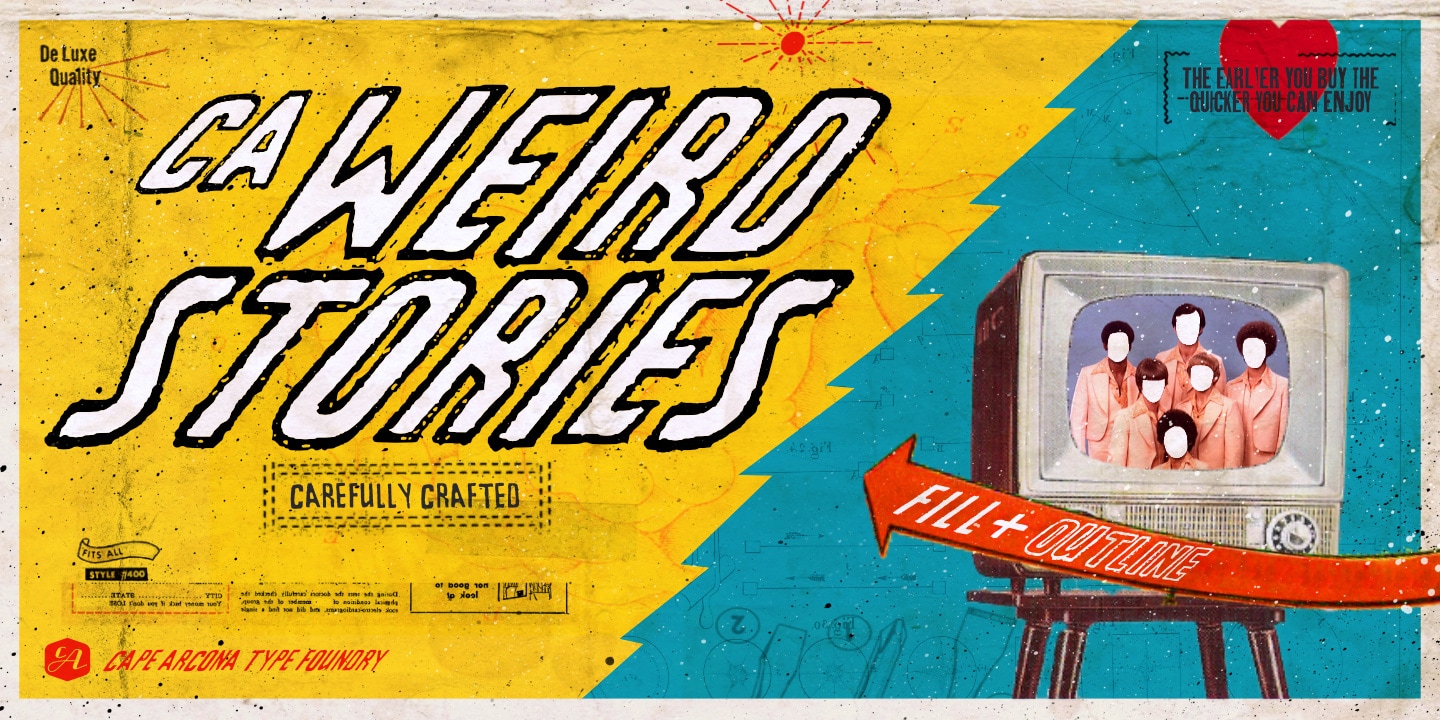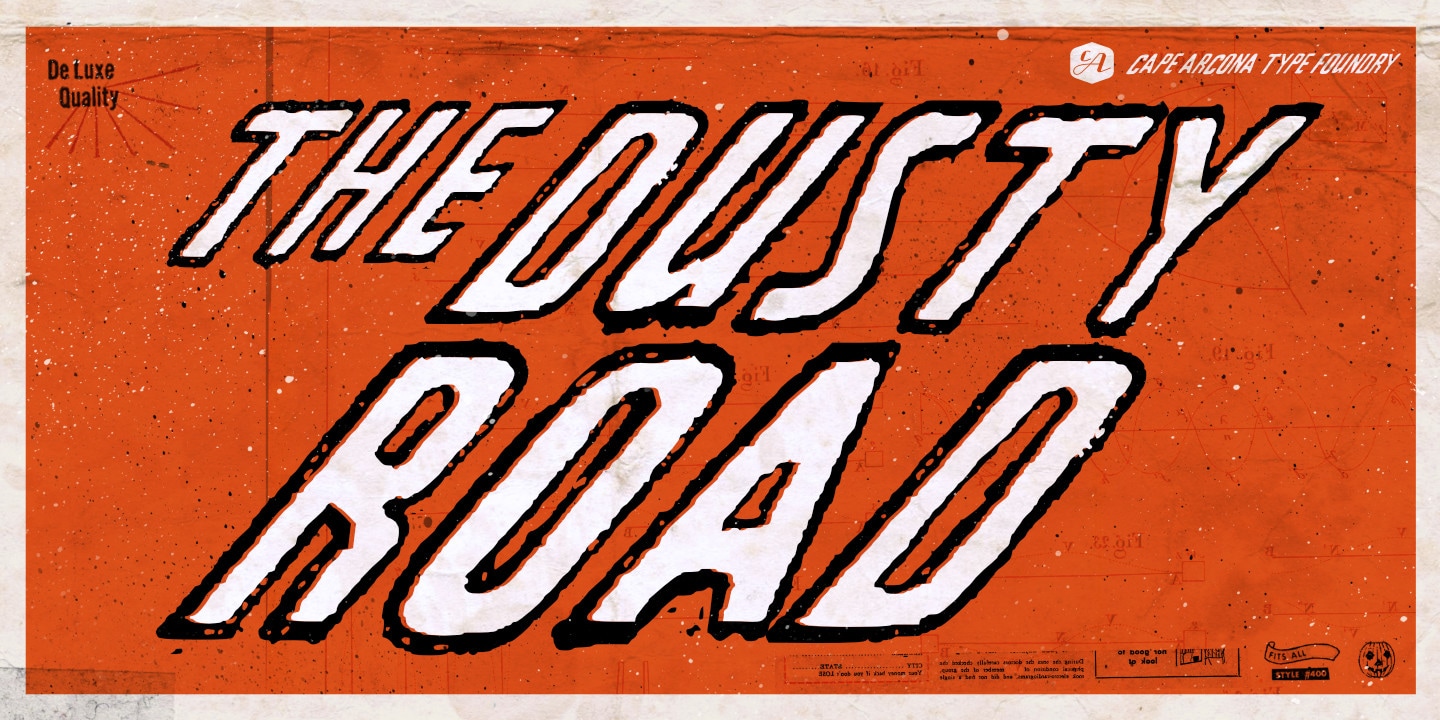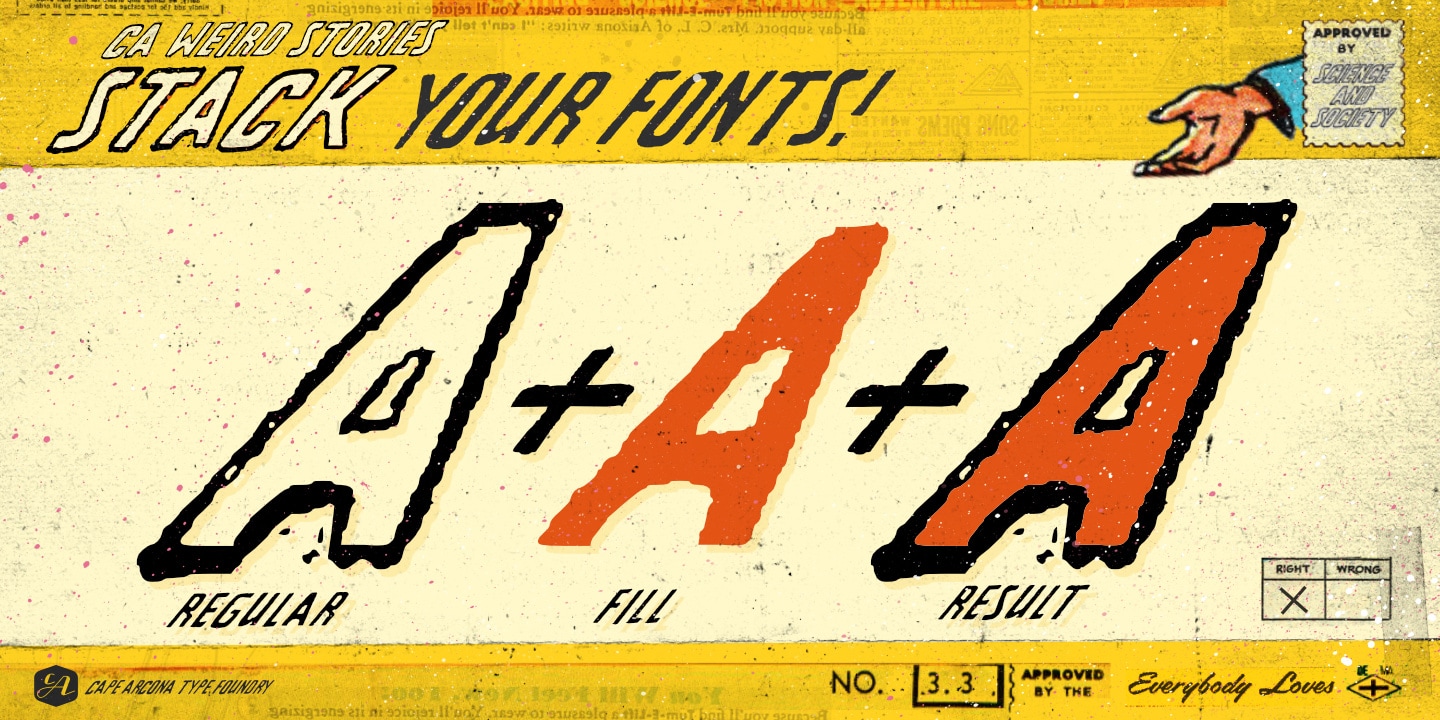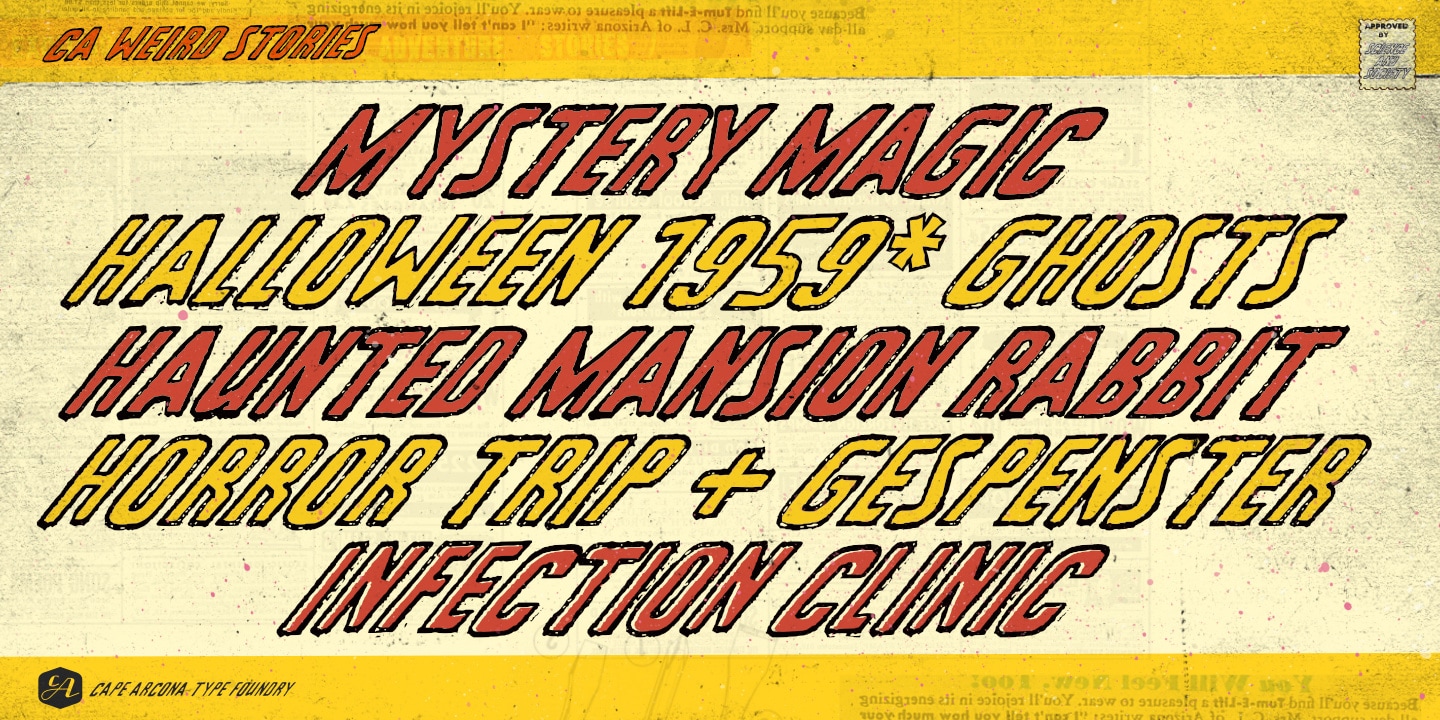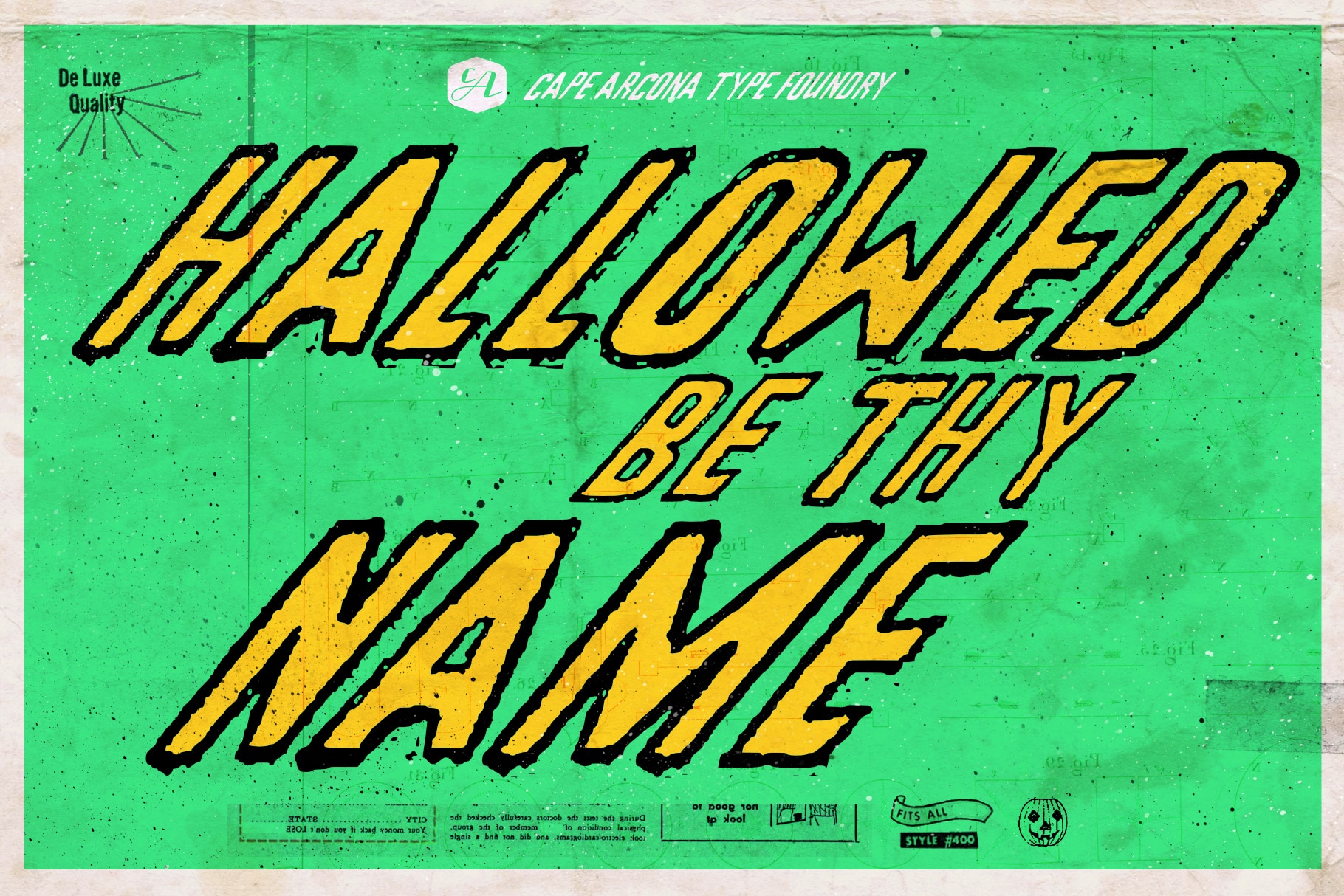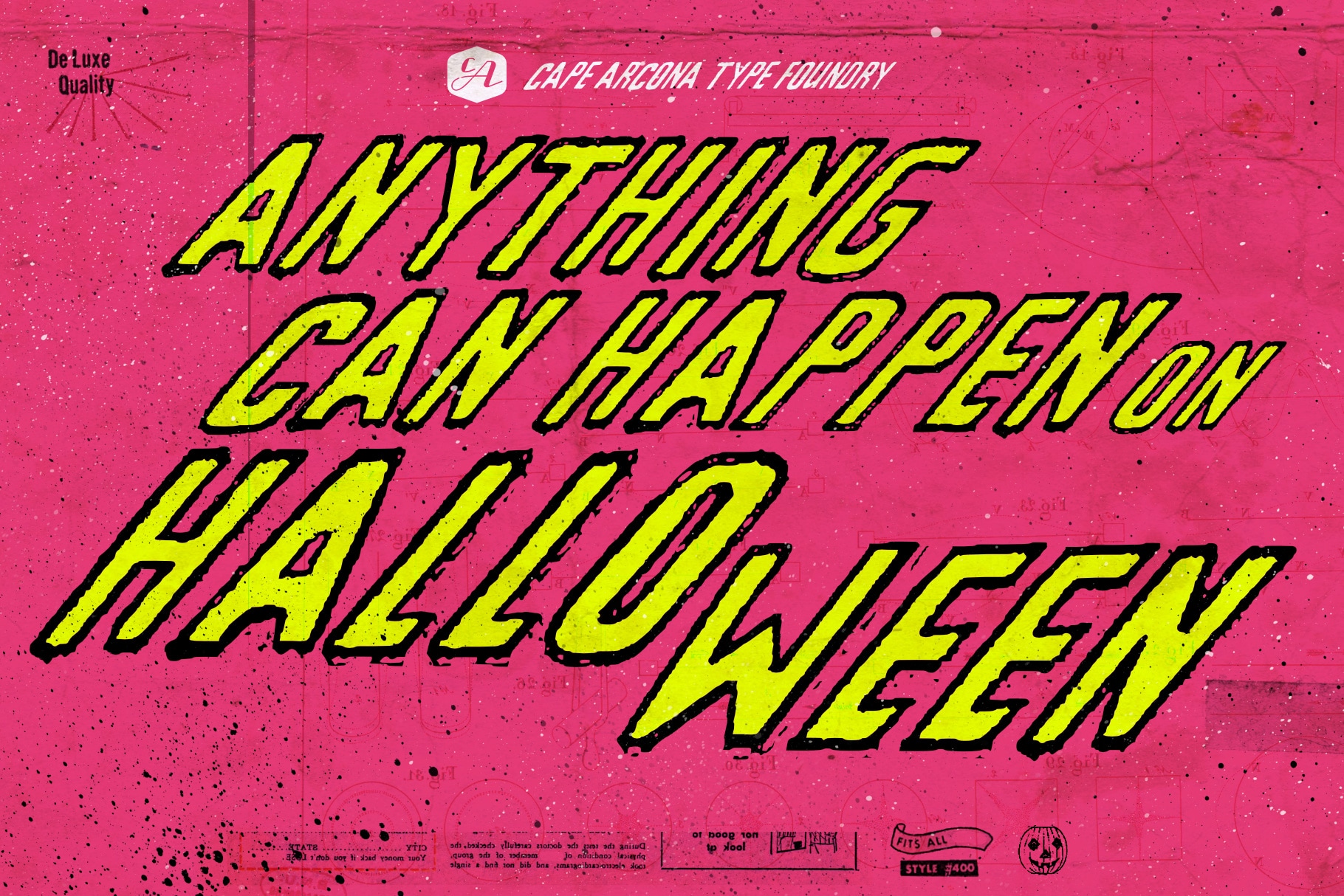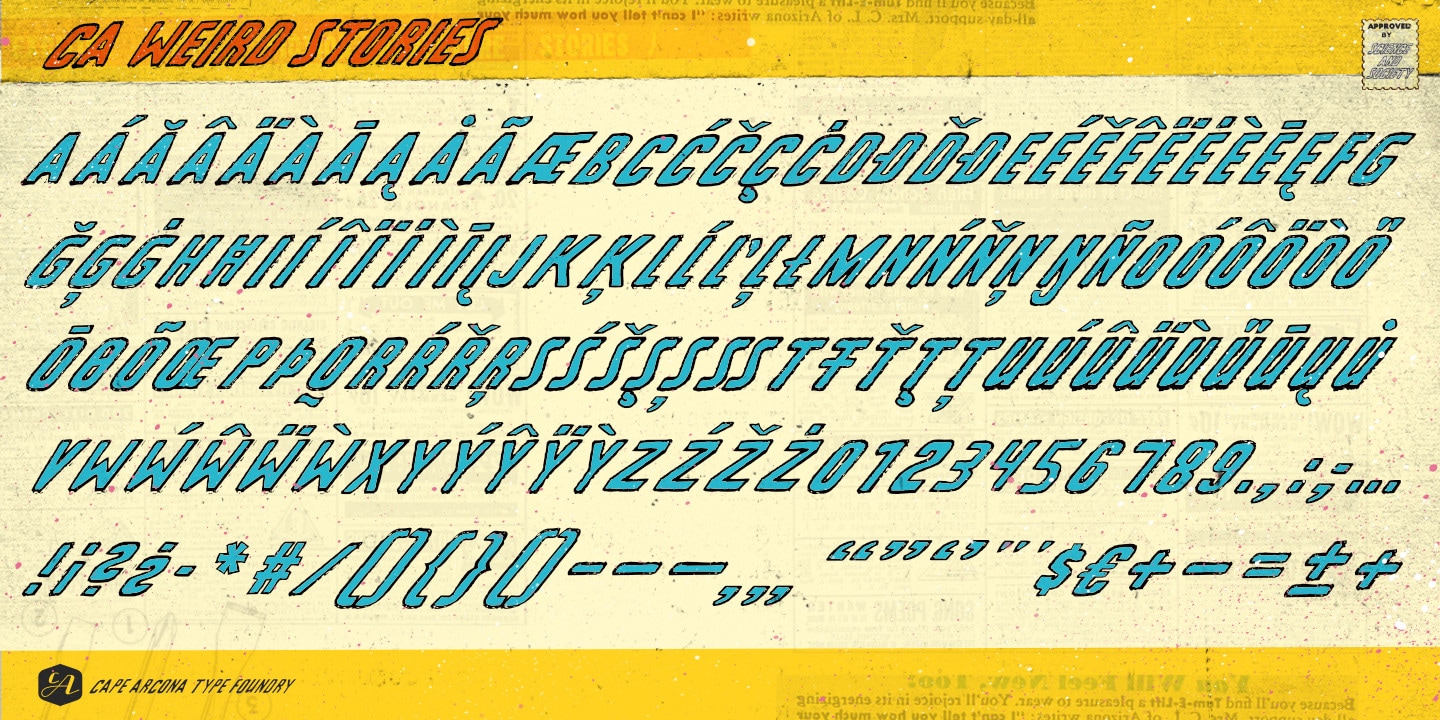
A font from outer space, CA Weird Stories — the perfect font for science fiction novels or to create a spooky atmosphere. Also, a perfect font for Halloween? A bit too weird and a bit too slanted for this world. Treat yourself with the ability to stack the two styles on top of each other to create great special FX. You may even consider using the “fill” style on its own, it might look a bit uneven, as it was actually designed to be used in combination with the “shadow/regular” style, but hey – that’s what this font is all about!